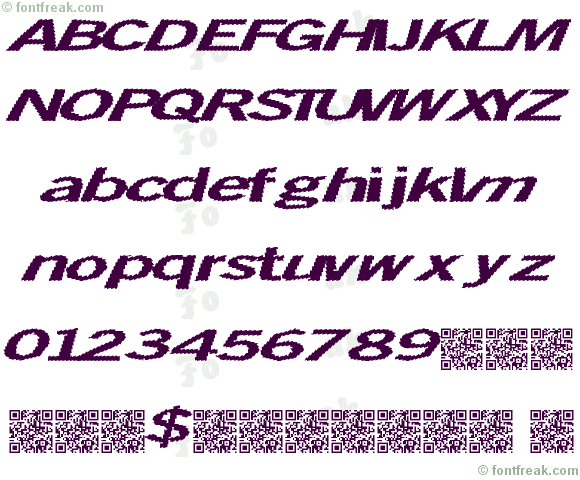
TotalShock
TotalShock, designed by Xerographer Fonts in 2013, is a striking display font that captures attention with its unique visual style. This font features a dynamic, bold stroke weight that creates an energetic feel, making it ideal for projects that require a sense of movement and excitement. The letters are characterized by a slightly uneven baseline and an irregular, textured appearance that adds a touch of playfulness. The contrast between the thick and thin strokes gives it a distinctive edge, while the spacing is designed to maintain readability without sacrificing style.
TotalShock excels in a variety of creative applications. It is particularly well-suited for movie posters, where its impactful presence can effectively convey the genre and tone of the film. Additionally, it can be used for branding in the entertainment industry, making it a perfect choice for logos and promotional materials. The font's unique flair also lends itself beautifully to music event flyers and concert promotions, where an eye-catching design is crucial. Furthermore, it can enhance the visual appeal of restaurant menus, particularly those with a modern or eclectic theme, capturing the attention of diners and setting the mood for the dining experience.
What sets TotalShock apart is its ability to blend artistic flair with functionality. Its bold and textured appearance allows it to stand out, making it a versatile choice for anyone looking to make a statement in their design work. Download the TotalShock font free today and unleash your creativity with this captivating typeface.